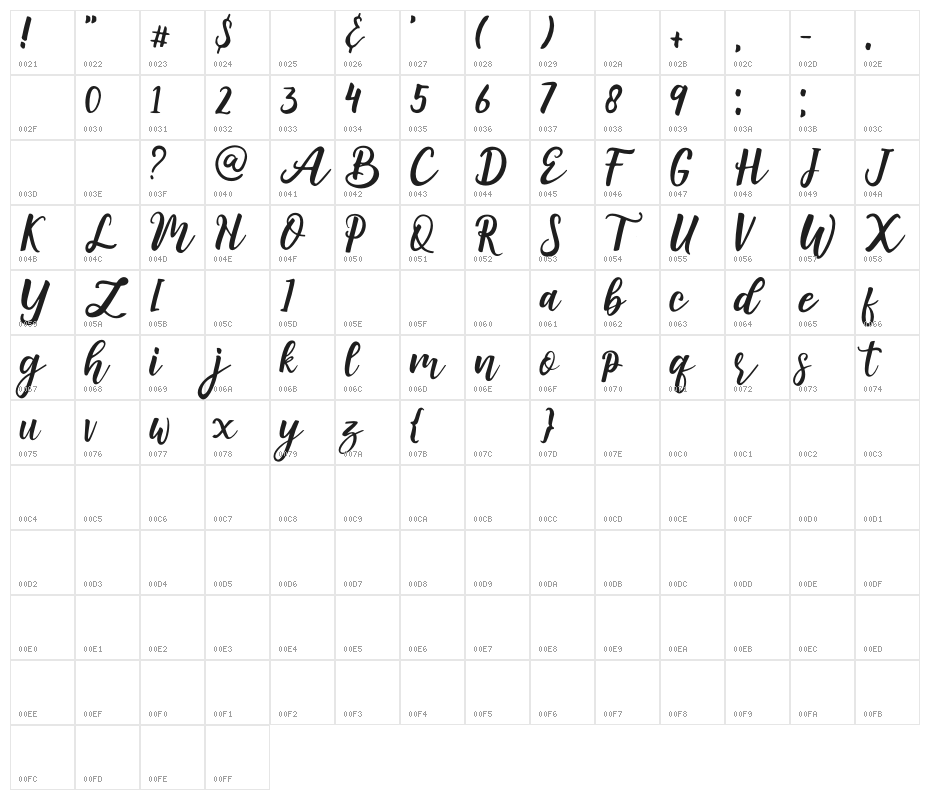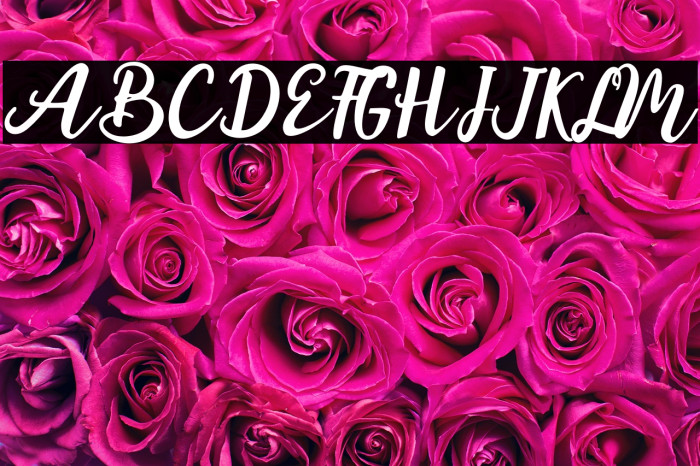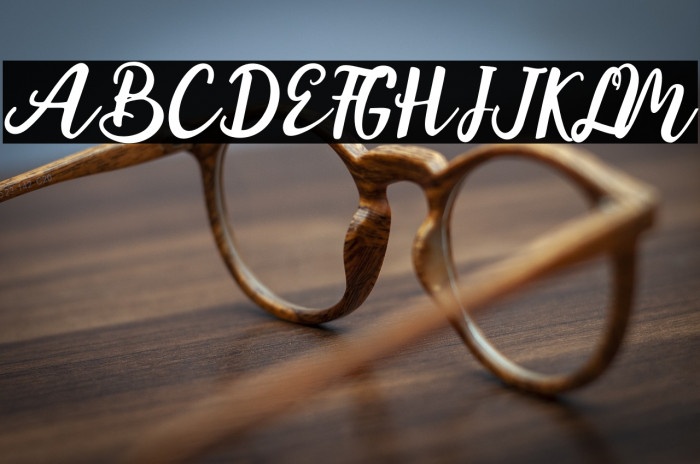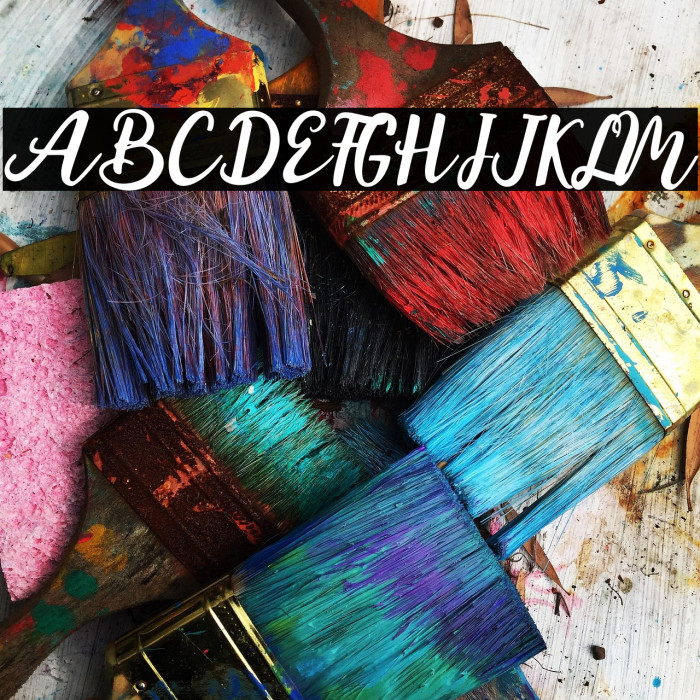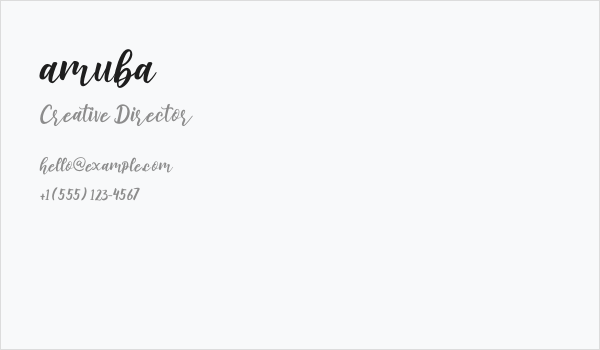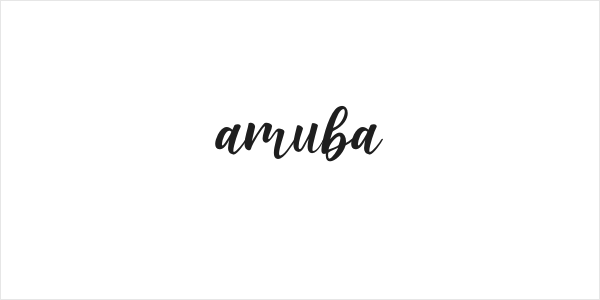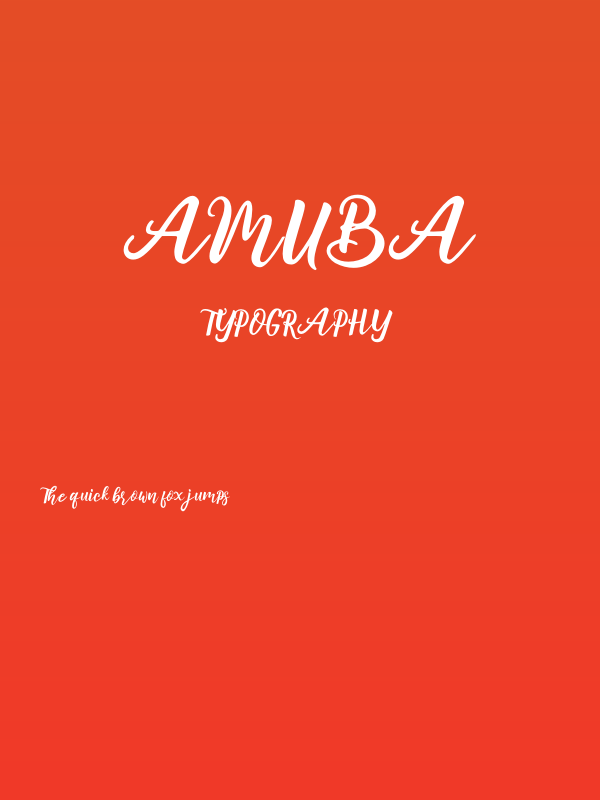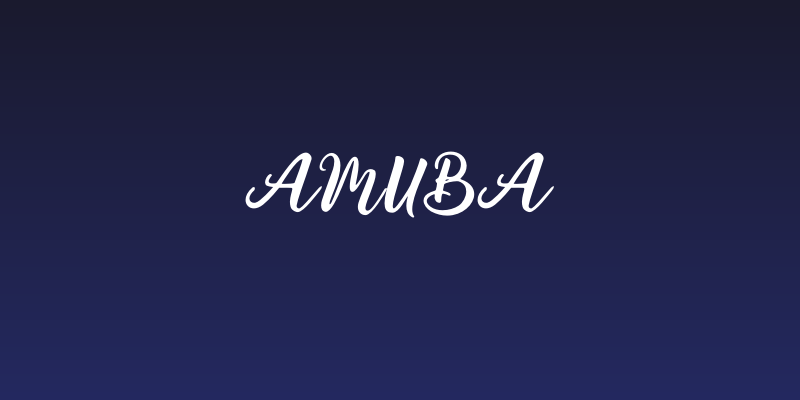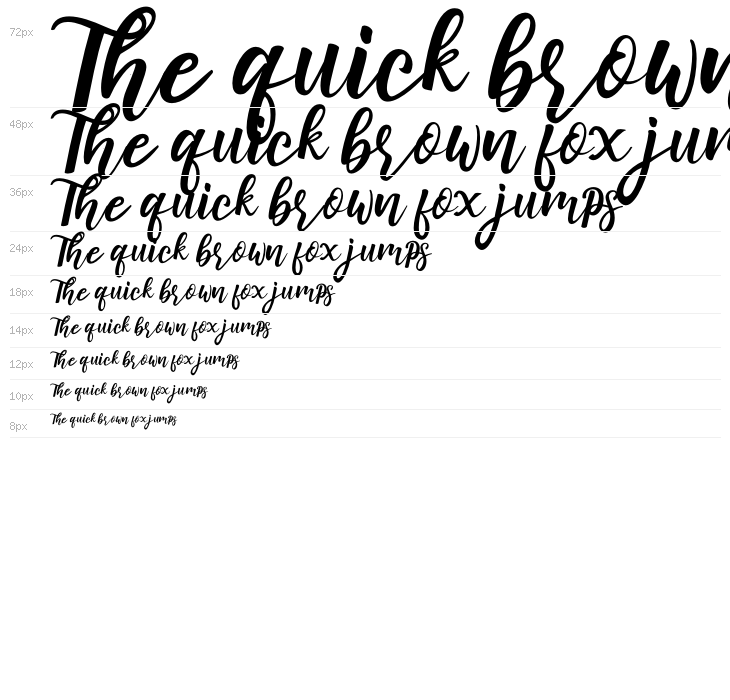
amuba Font
amuba Description
This font features a bold and expressive script style, characterized by its fluid and dynamic strokes. The uppercase letters are elegantly crafted with sweeping curves and a sense of movement, while the lowercase letters maintain a consistent flow, enhancing readability. The numerals are bold and slightly slanted, matching the overall energetic feel of the font. Special characters are thoughtfully designed to complement the alphabet, adding versatility to the font's use. The overall design exudes a modern and stylish vibe, making it suitable for a variety of creative projects.
Use CaseLogos, Headlines, Invitations
Proposed ProjectsIdeal for branding, invitations, greeting cards, and social media graphics.